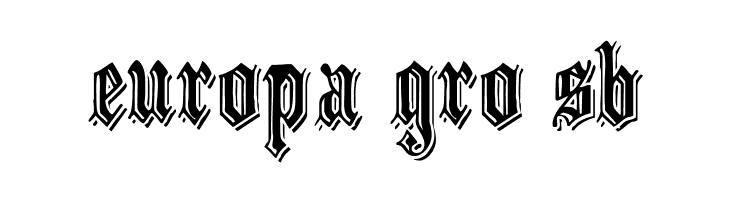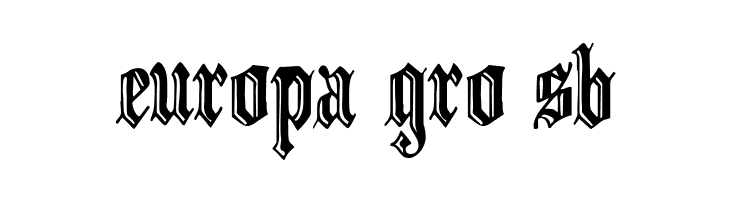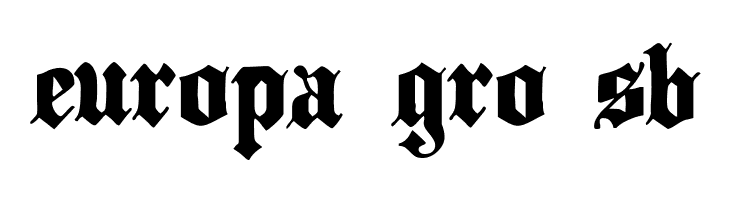
An ornate blackletter font with intricate flourishes and bold strokes.
A bold, intricate blackletter font with ornate flourishes and sharp angles.
A decorative blackletter font with ornate flourishes and bold strokes.
A bold, decorative Blackletter font with intricate flourishes and strong vertical lines.
A decorative blackletter font with ornate swashes and bold strokes.
An ornate, calligraphic font with sharp, angular strokes and elegant flourishes.
An ornate and decorative font with a classic calligraphic style.